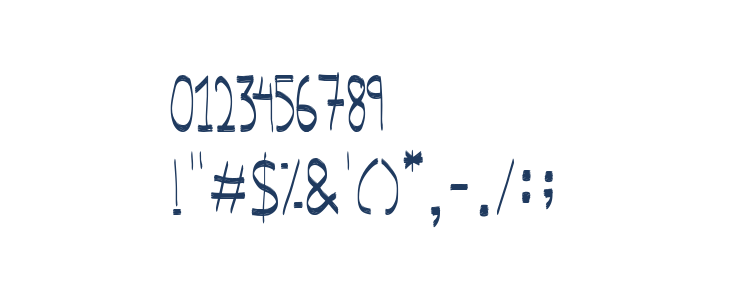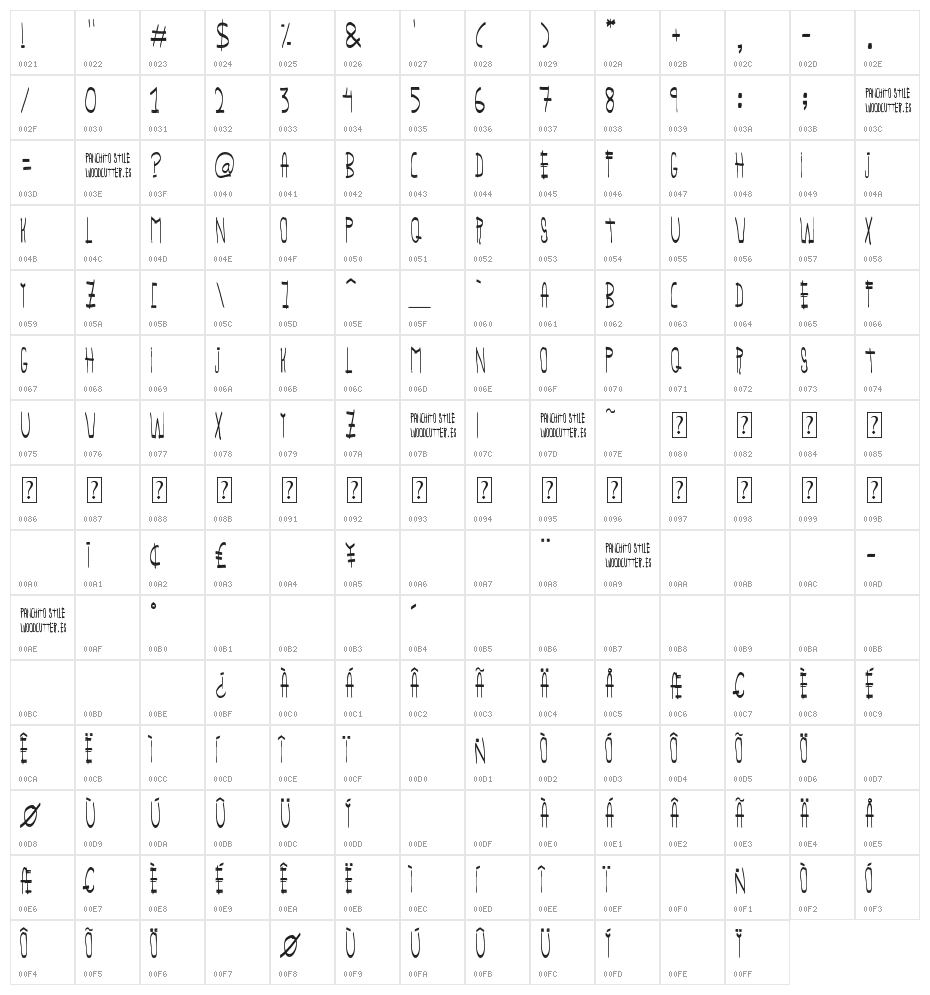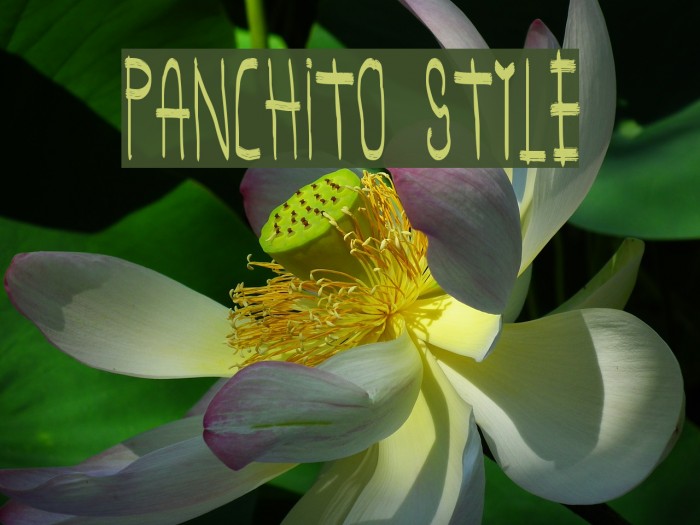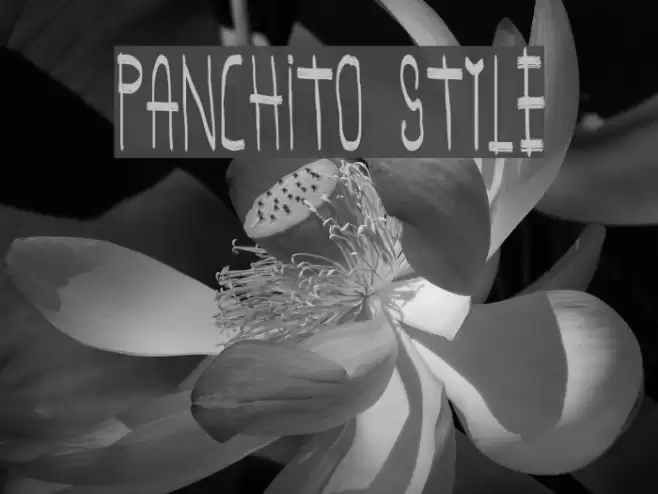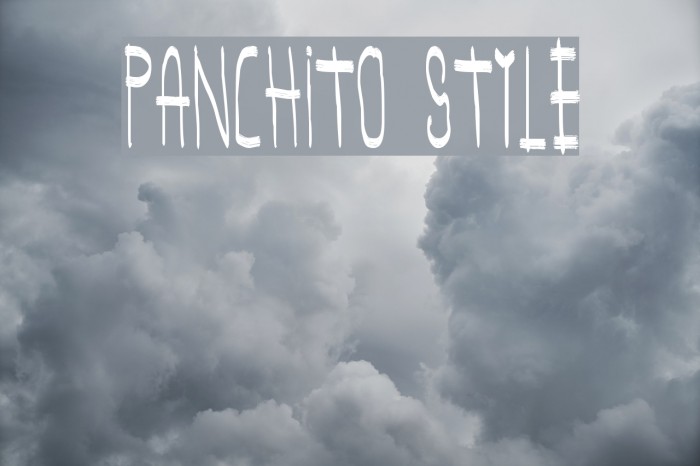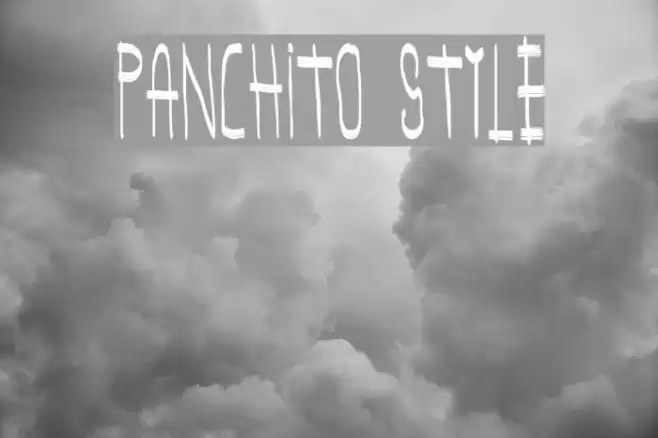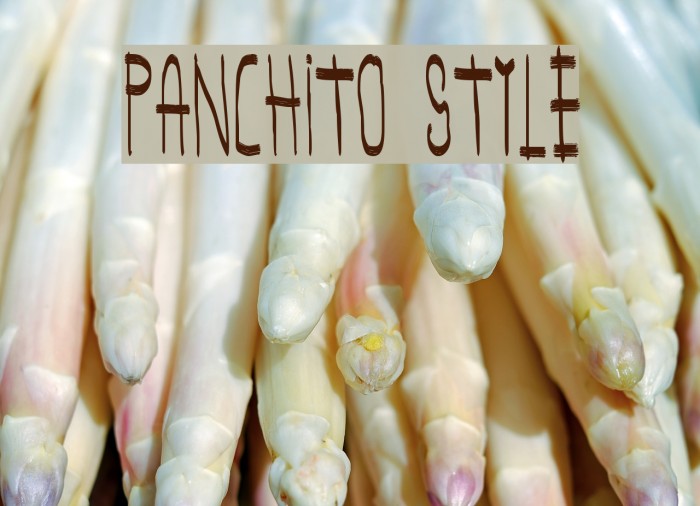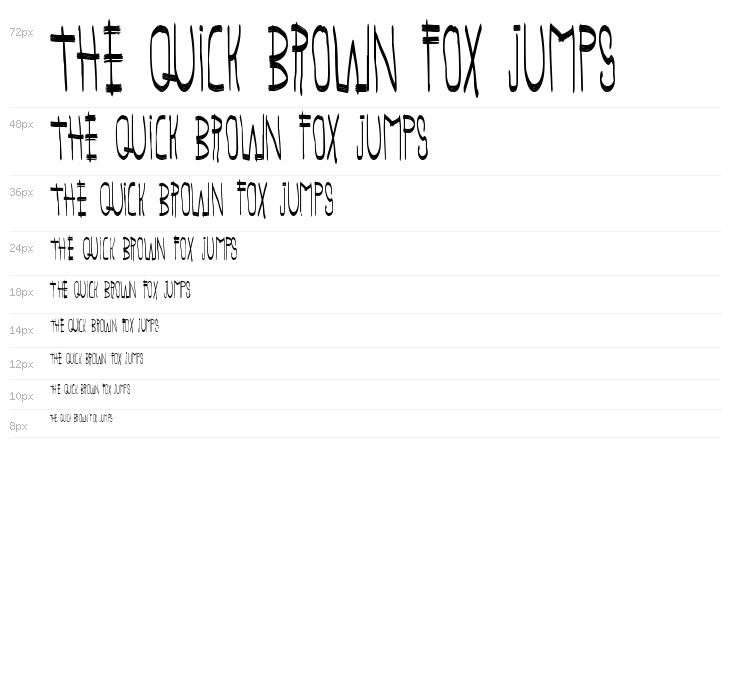
panchito style Font
panchito style Description
This font features a playful and quirky handwritten style with uneven strokes and a slightly distressed appearance. The characters are tall and narrow, giving them a unique, elongated look. The uppercase and lowercase letters maintain a consistent style, with a whimsical touch that adds personality. The numbers and special characters follow the same playful design, making the font versatile for creative projects. The irregularities in the strokes give it a hand-drawn feel, perfect for designs that require a personal and artistic touch.
| Use Case | Logos, Posters, Creative projects |
| Proposed Projects | Ideal for children's book covers, playful branding, greeting cards, and artistic posters. |